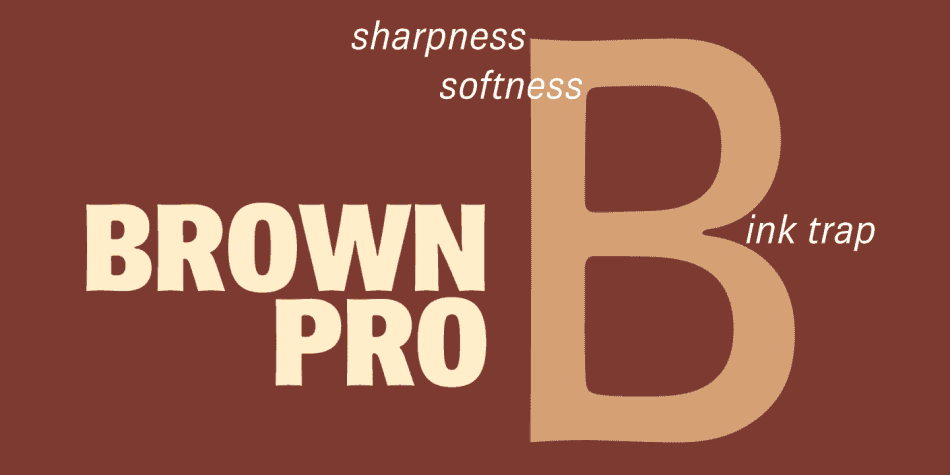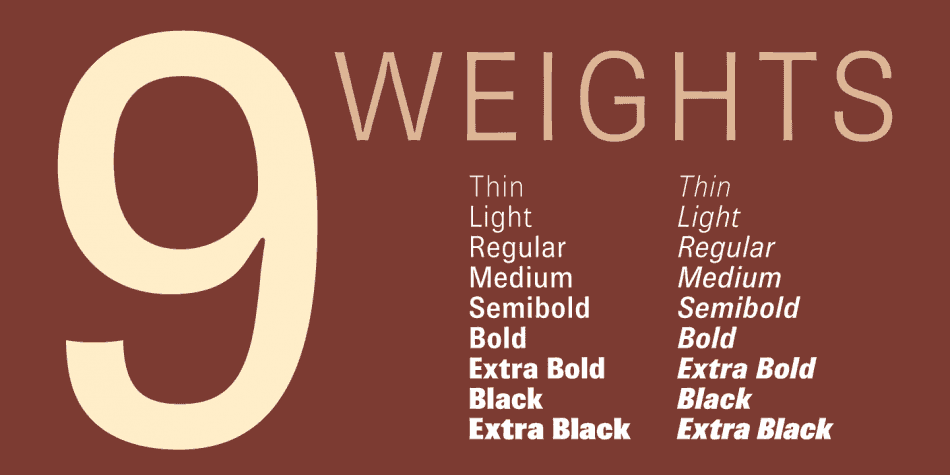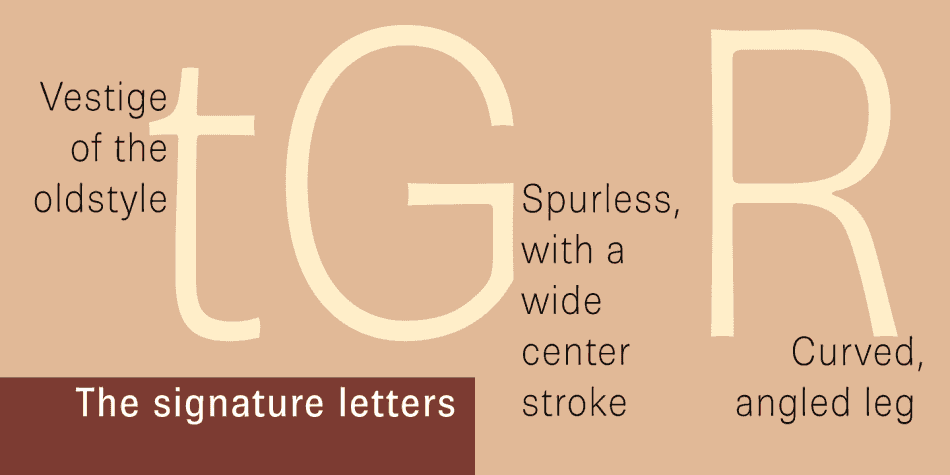
Brown Font Family is an elegant classic grotesque distinguished by its condensed proportions in capital letters. These proportions complement both the lining figures as well as certain high-resolution materials with micro-detailed printing, like offset printing.